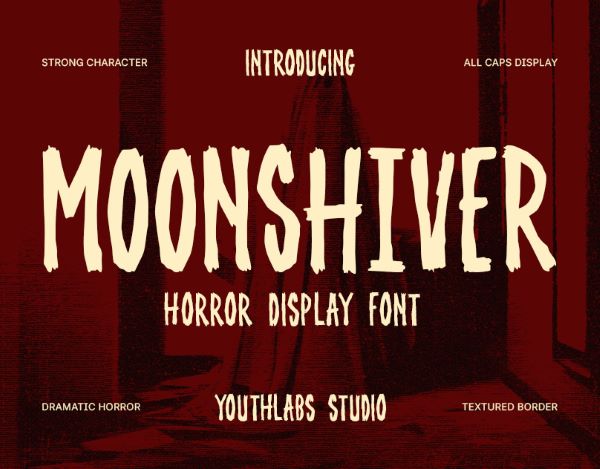
Moonshiver Font
Moonshiver by Youthlabs Studio is a dramatic horror and freaky font that builds its atmosphere through texture, weight, and the particular menace of jagged hand-drawn strokes applied to a bold, all-caps structure. The design takes its inspiration from the cinematic language of classic horror — dark hallways, eerie shadows, the kind of tension that builds before anything actually happens — and translates that atmosphere directly into letterform. Ideal for horror movie posters, Halloween invitations, spooky book covers, eerie branding, and dark merchandise design. Free for personal use.